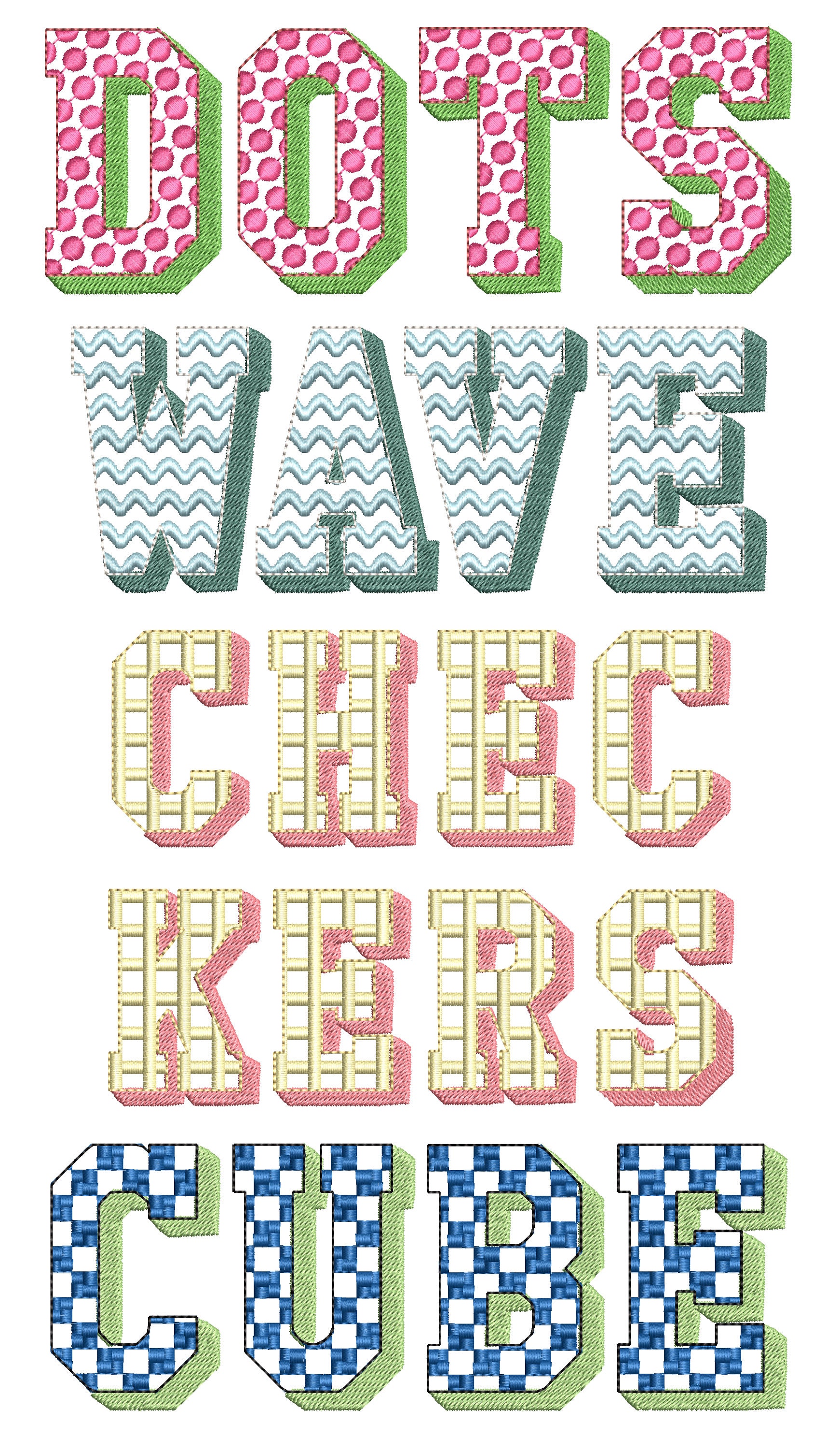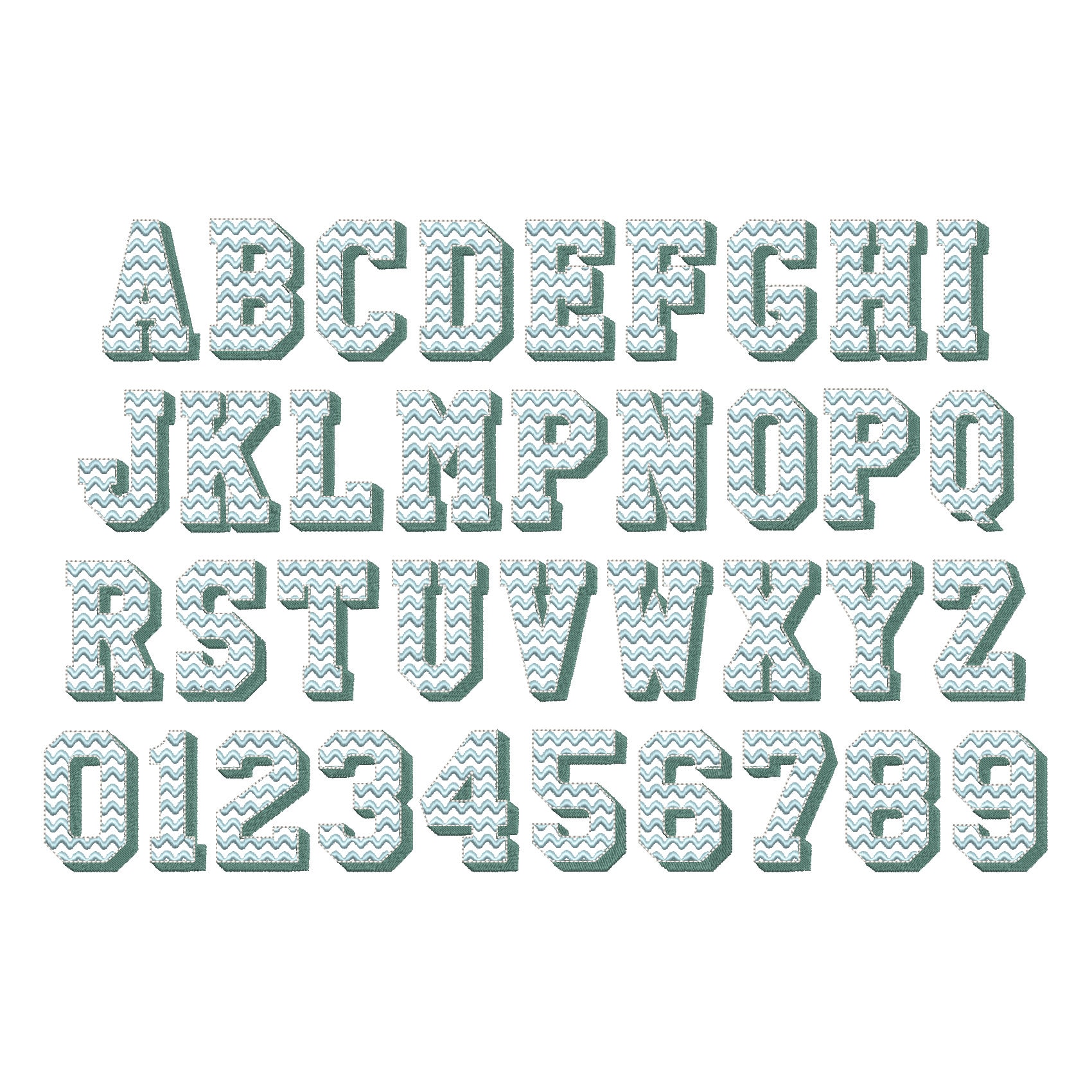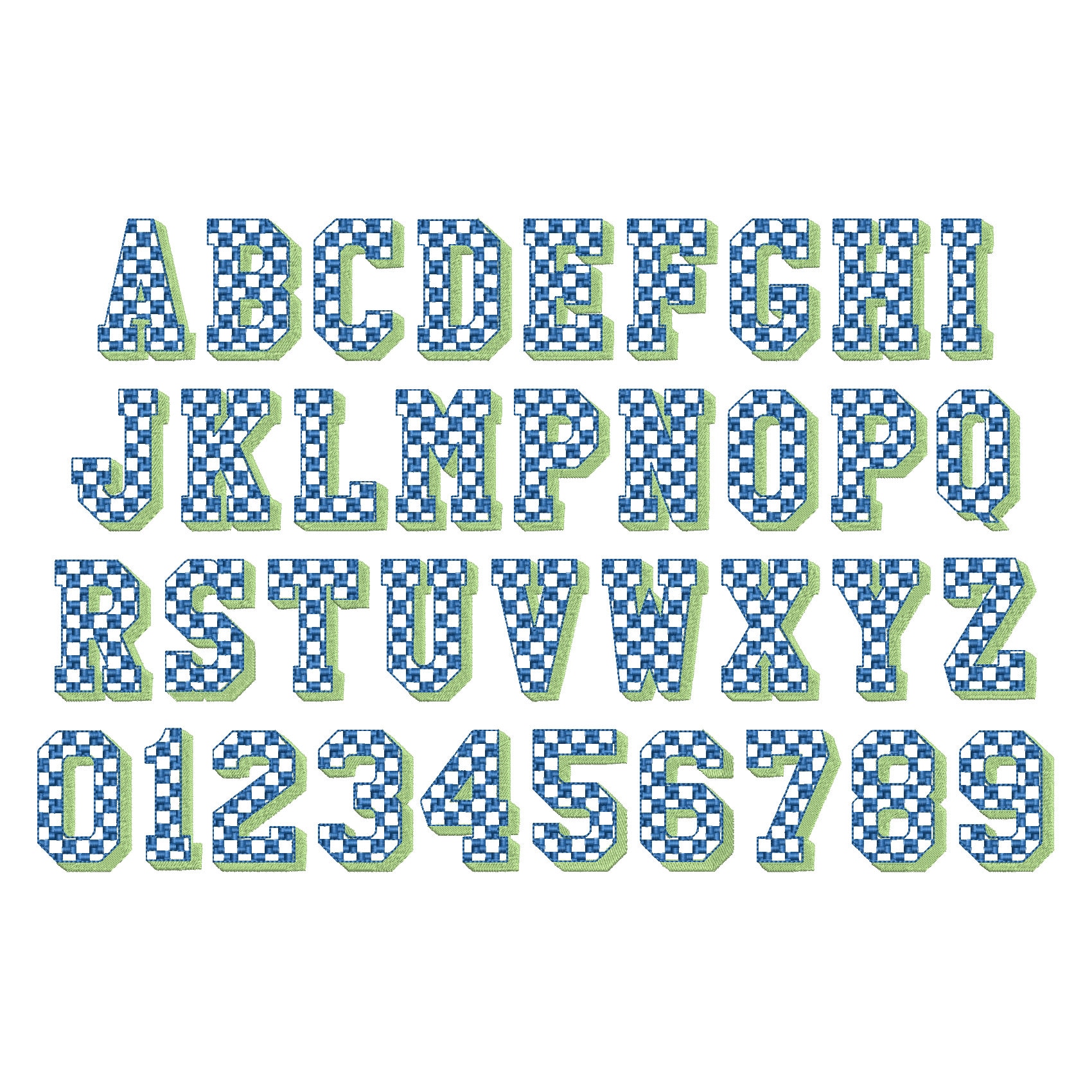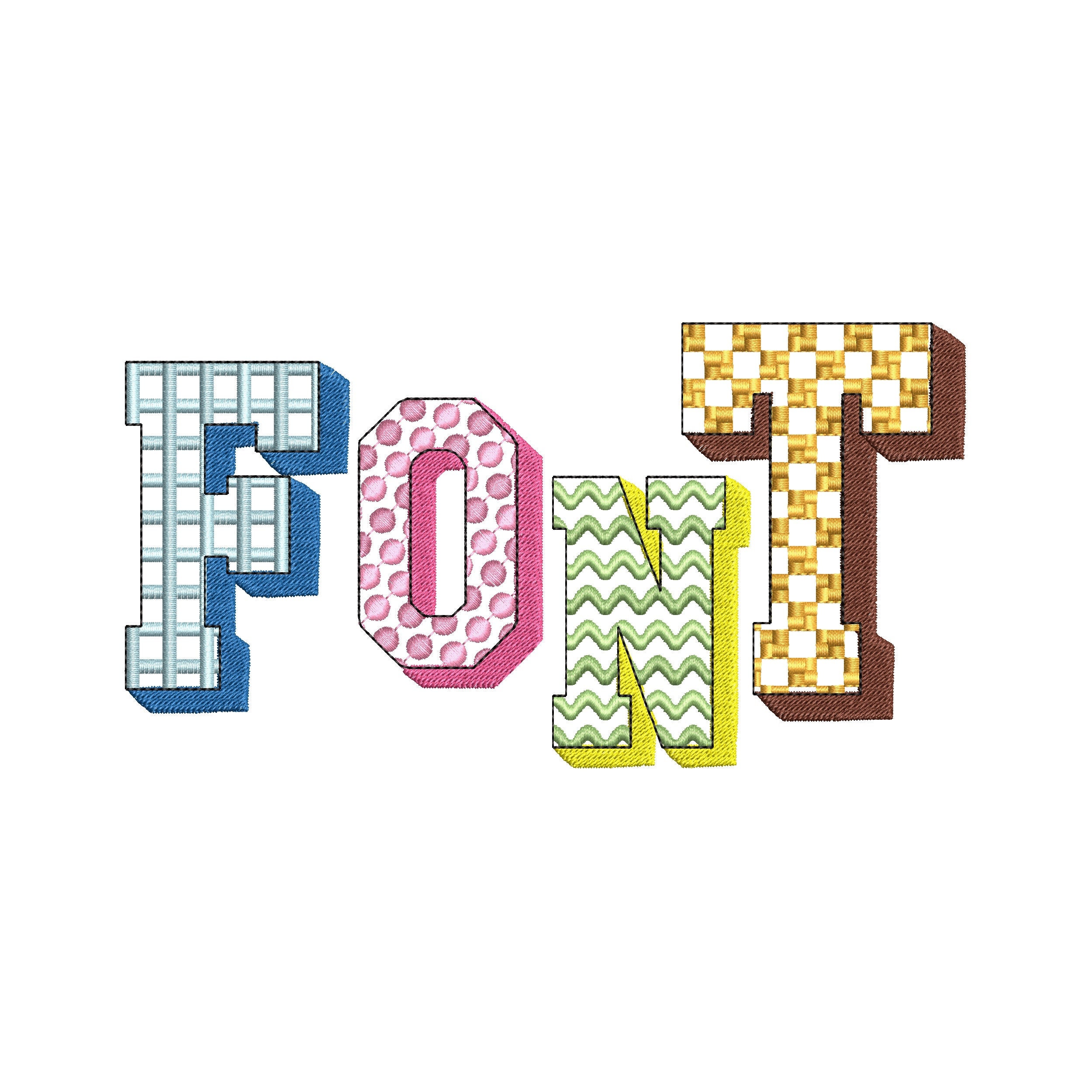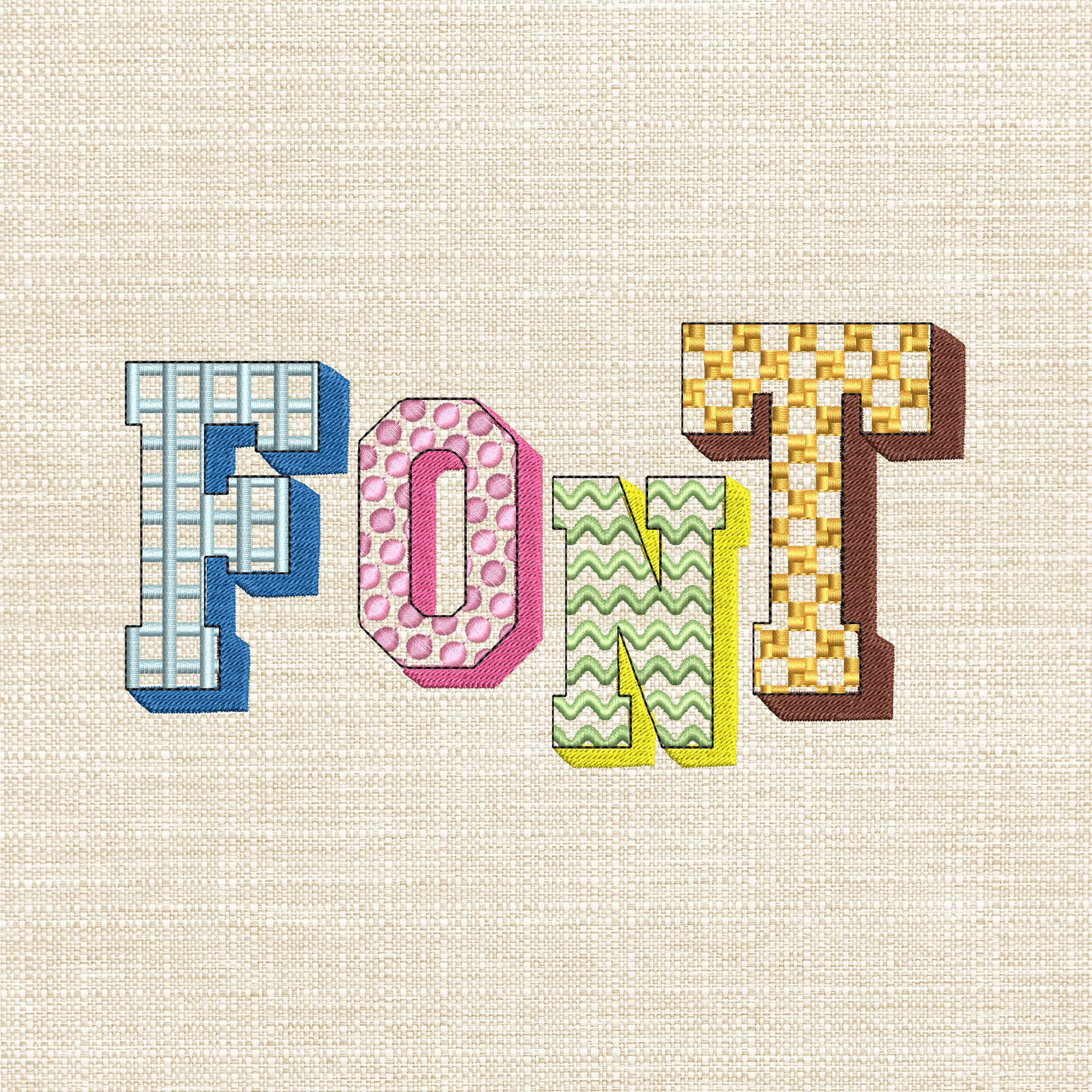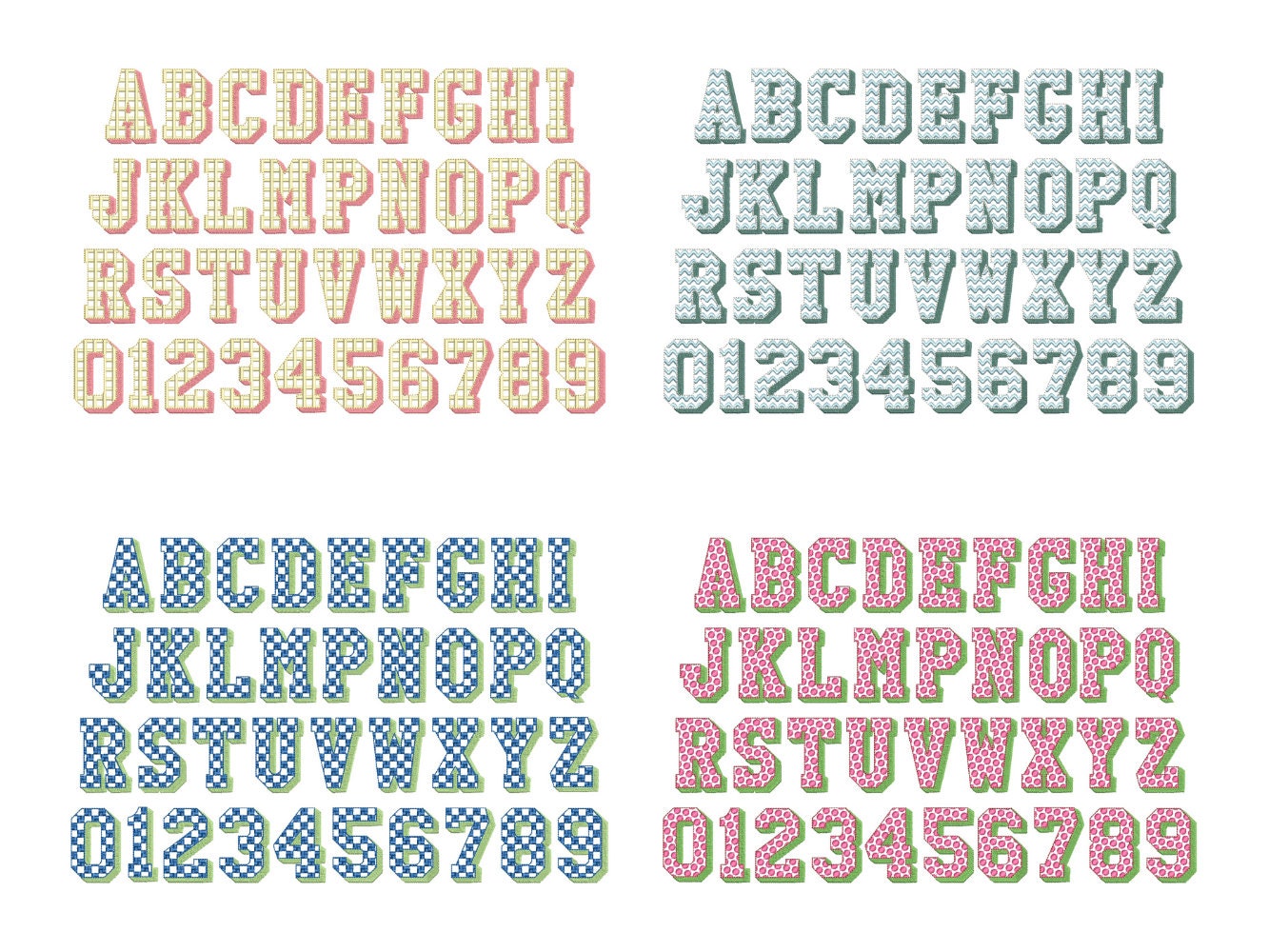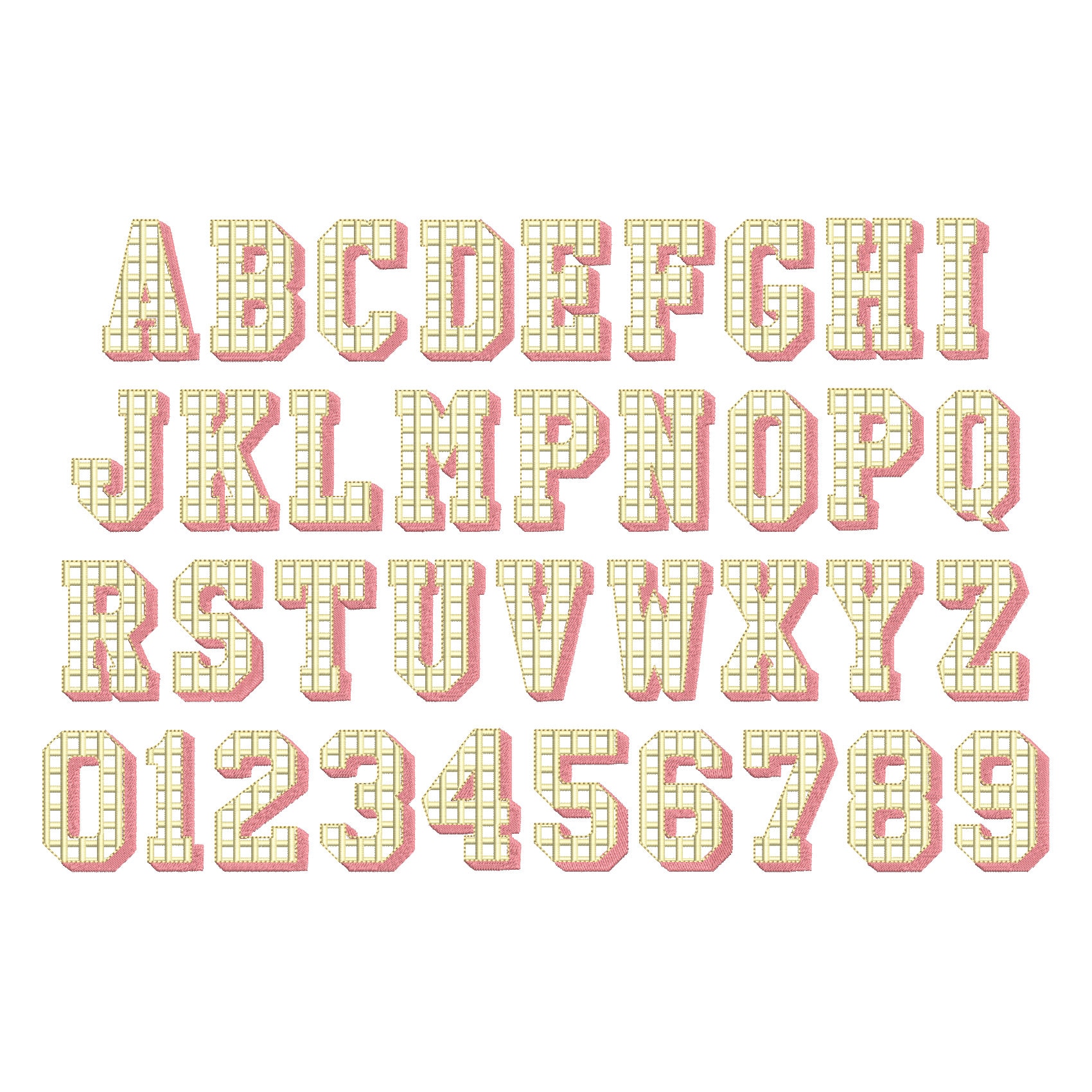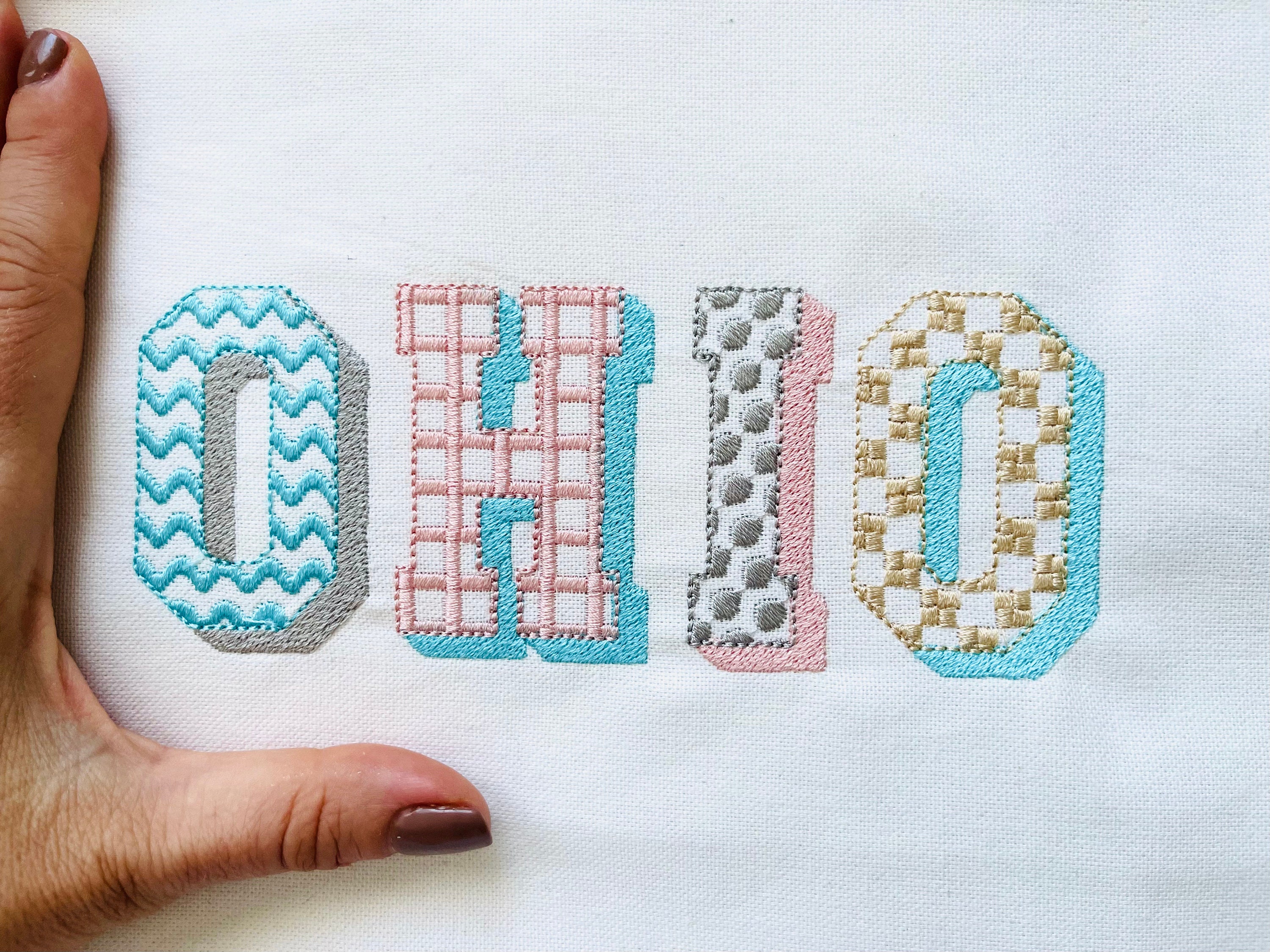
SET of 4 Patterned Fonts Dots Checks Waves and Cubes alphabet letters & numbers machine embroidery design assorted sizes combine and merge as you wish, BX files included
Included 4 fonts:
* dotted font
* checkered font
* cube font
* wave font
The fonts are transparent and have fill stitch or satin stitch pattern inside, fill stitch shadow, and a light bean stitch outline.
Each font contains uppercase A-Z and numbers 0-9.